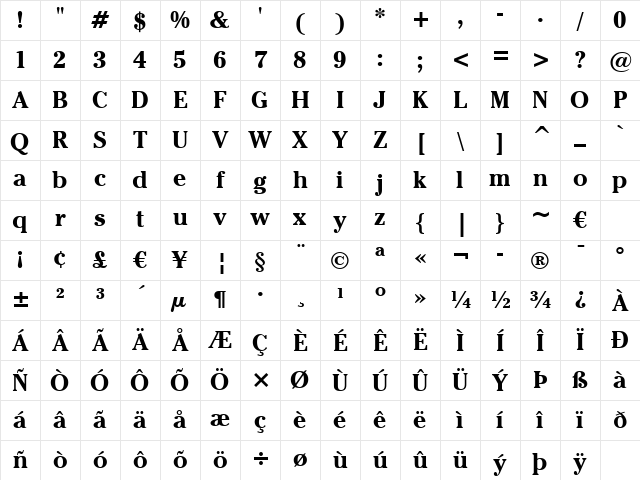
Complete ChelthmITC Bk BT Bold glyph index. Displaying only characters natively supported by ChelthmITC Bk BT Bold font.
ChelthmITC Bk BT is a composed and adaptable typeface that performs quietly and consistently across a wide range of design contexts. Its bold stroke weight gives it real presence on the page.